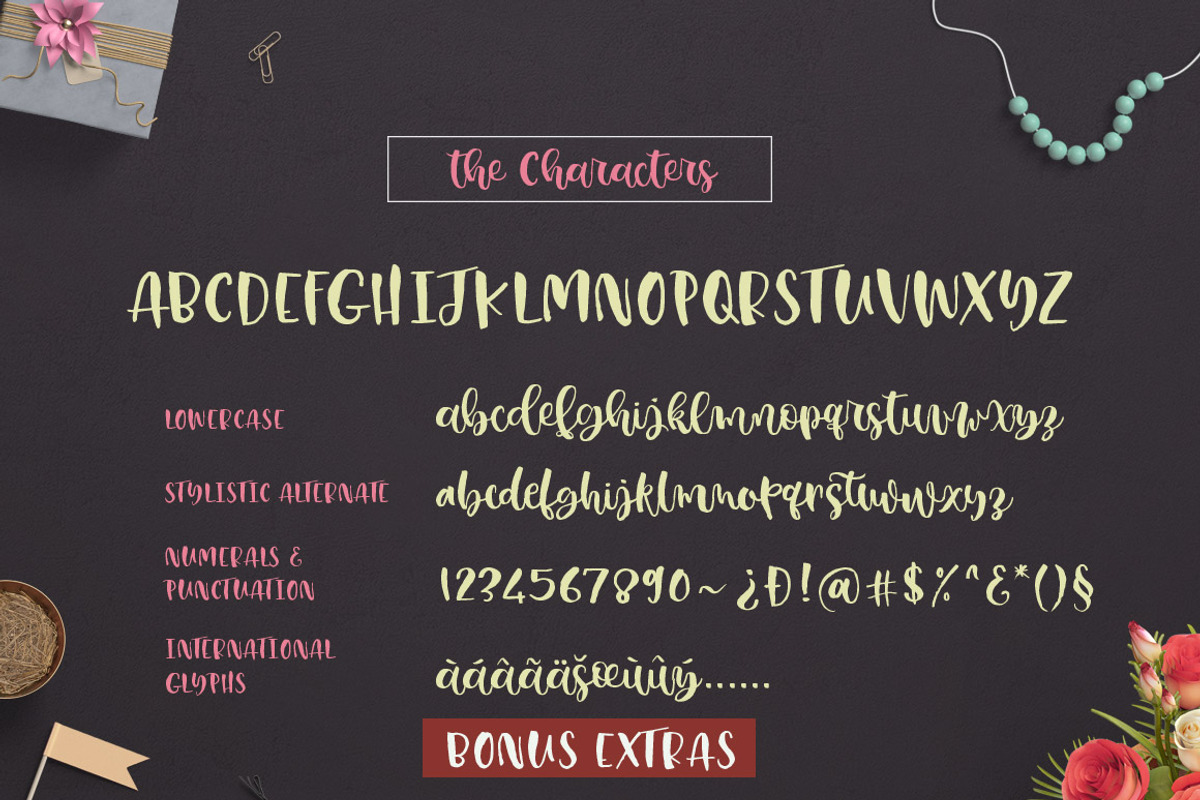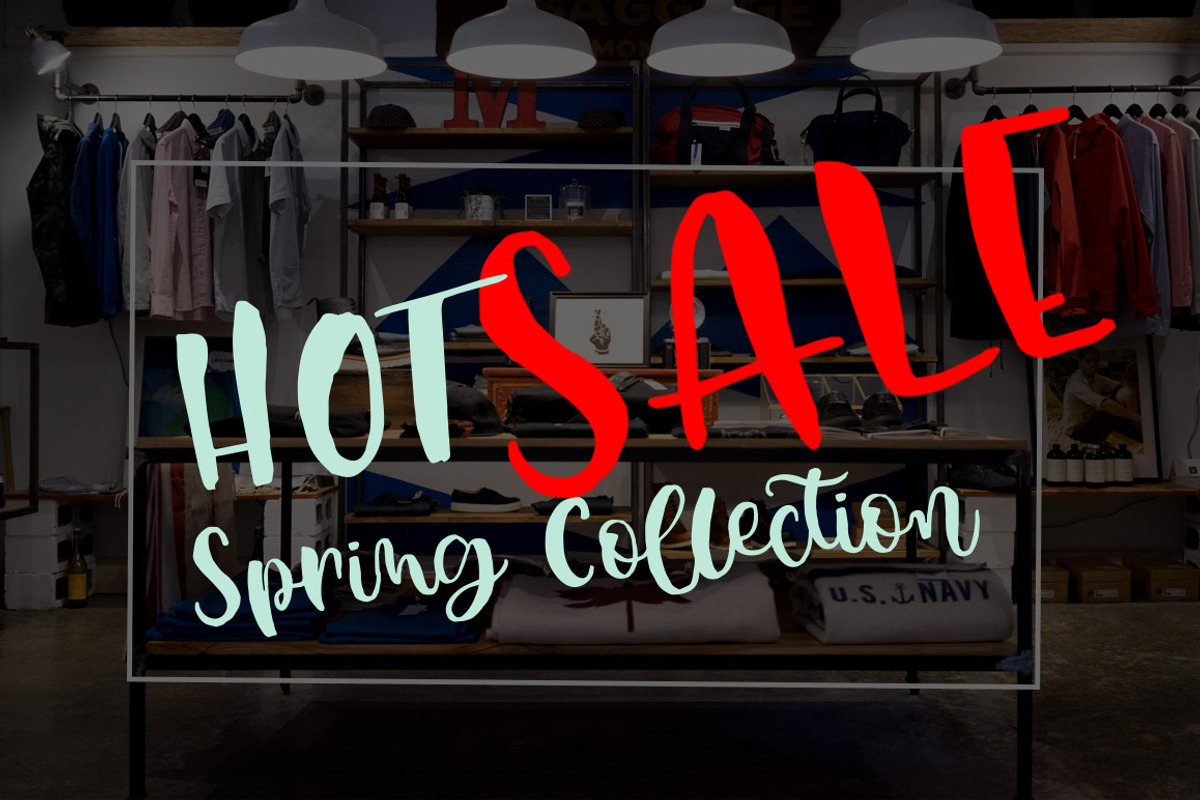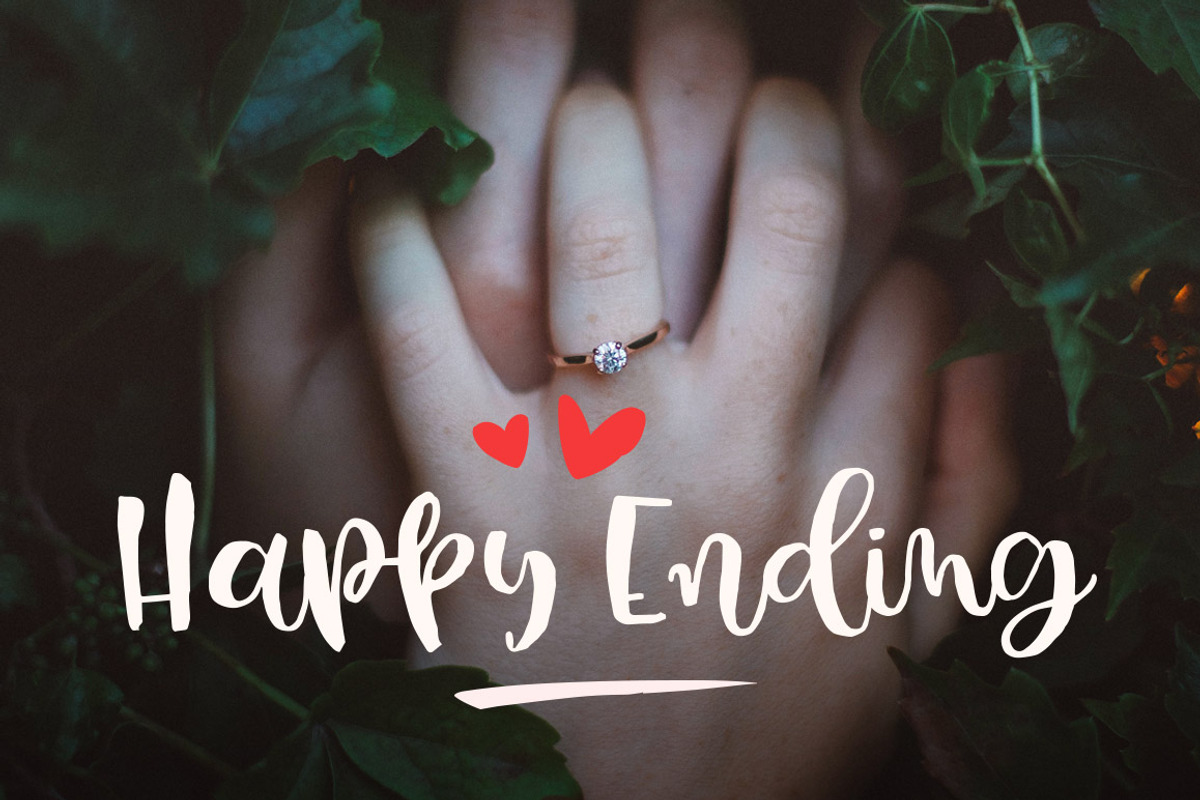
Queen Star
Introducing Queen Star is a handwritten set with natural brush strokes and dancing base. Proudly designed for handwritten quotes, wedding invitations, baby shower invites, name tag, personal branding and other kind of related handwritten.
Queen Star, includes full set of lower and uppercase letters and numbers plus Bonus EXTRAS